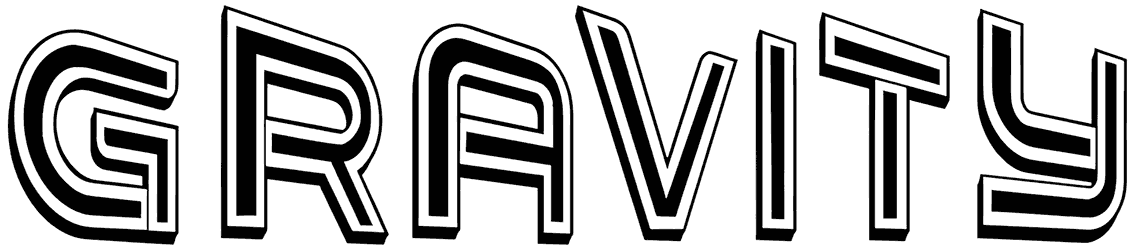
Gravity Font
Sometimes you need your content to be playful and fun, but with a retro theme, which is where Gravity really comes in handy. This 3D font with a bold outline and perspective view creates this nice-looking design.
Use it for games, posters, movies, and billboards, yes, it has a downside of not having lowercase, numbers, and punctuation marks, but the uppercase alone can help you in making tremendous graphic designs. Check it out here at Resource Boy.